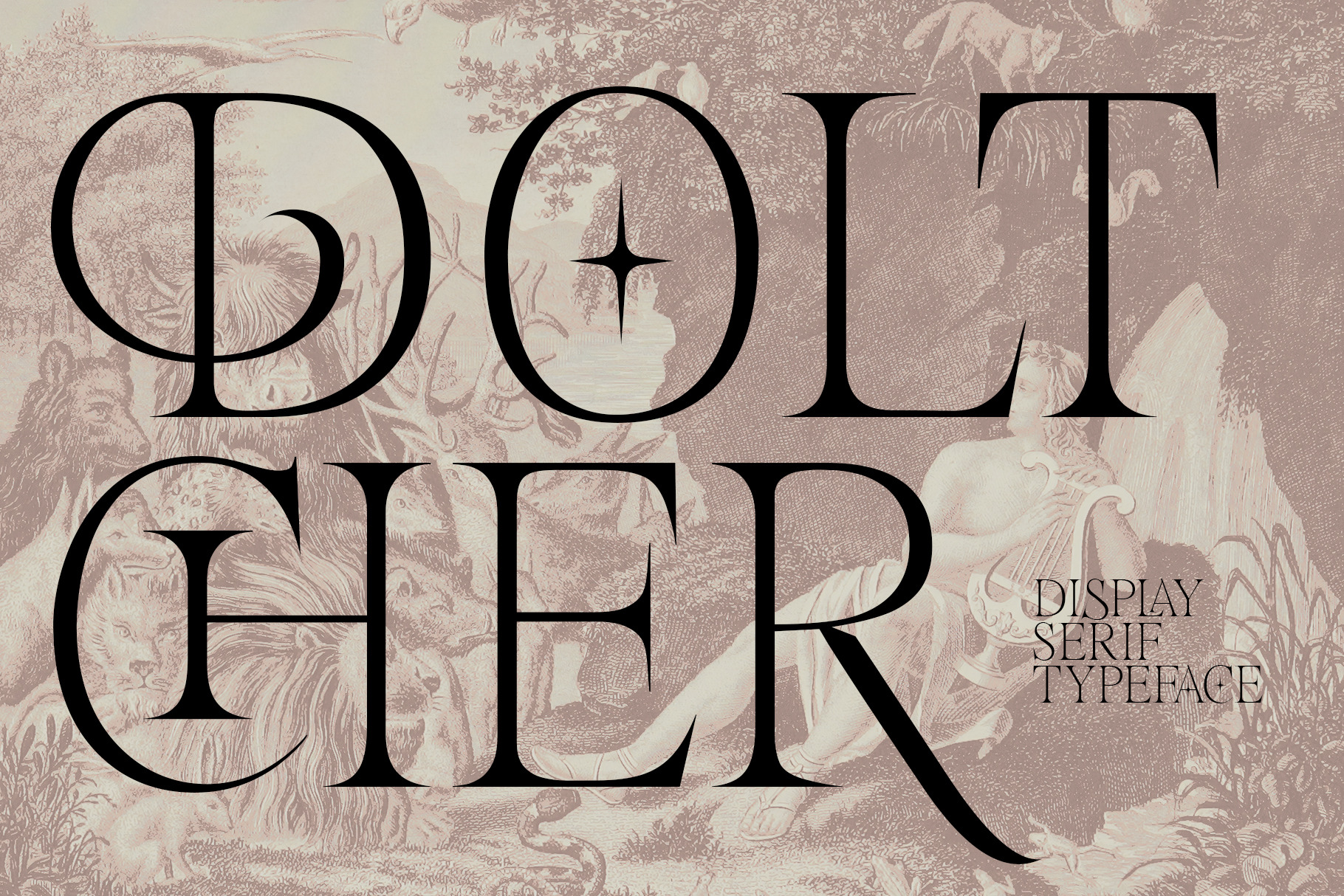
Doltcher Display Serif Typeface
Doltcher is a depiction of a serif typeface that seems low effort in terms of exploration. However, the aesthetic touch contained in this font will adjust its existence to the standard typeface. Doesn't make the aesthetic side damage the basic order of the typeface. Some ligatures and alternates are made enough to support the needs of the display and are not forced